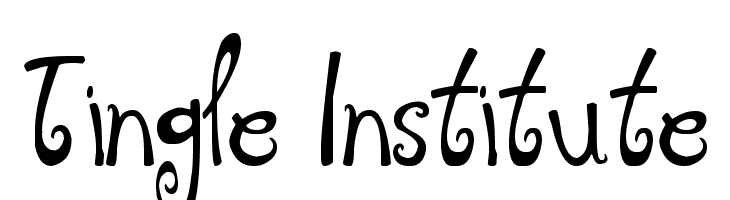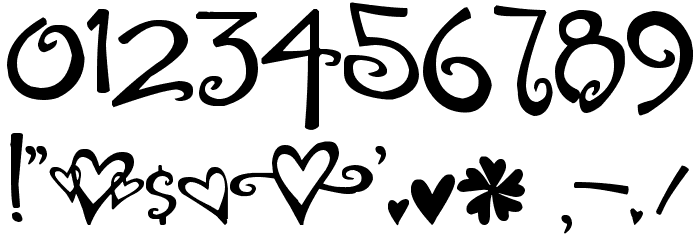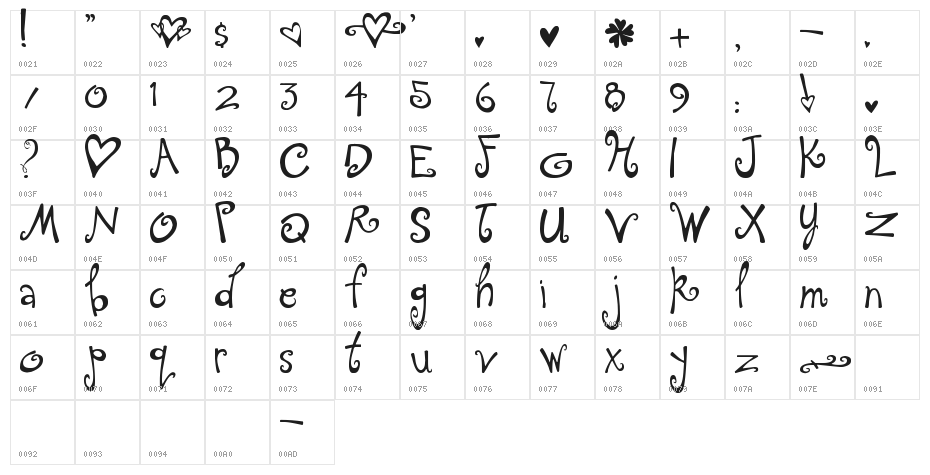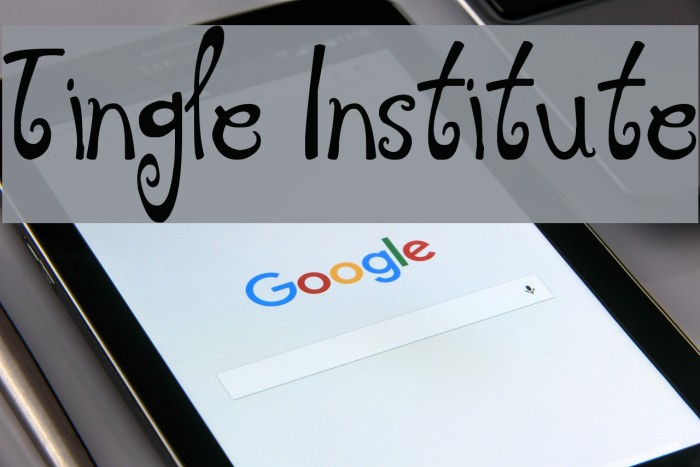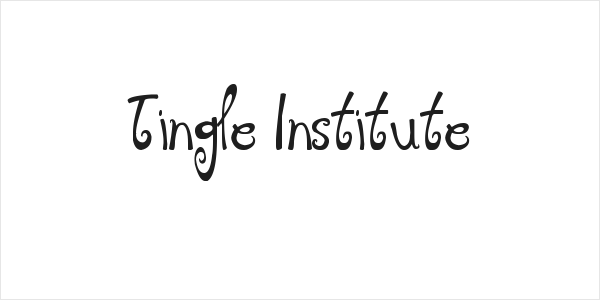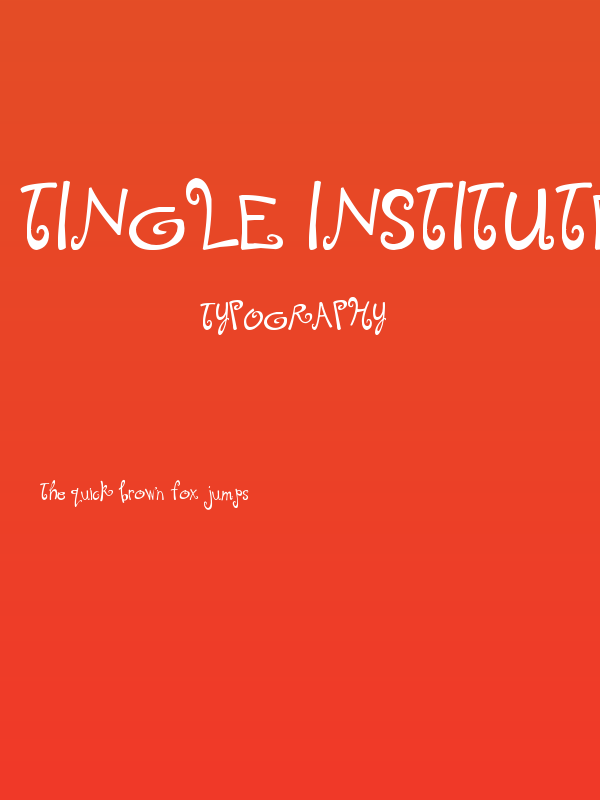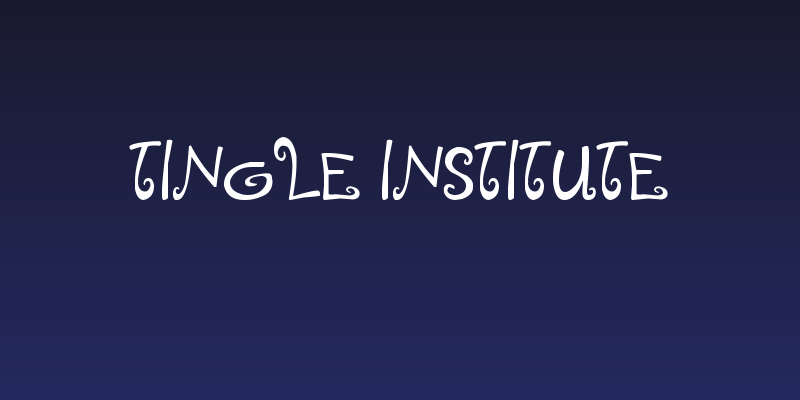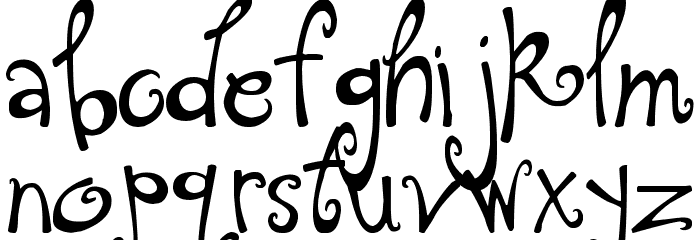
Tingle Institute Font
Tingle Institute Description
This whimsical and playful font features a unique, hand-drawn style with curly and swirly elements that give it a lively and energetic feel. The uppercase and lowercase letters are characterized by their irregular shapes and varying stroke thicknesses, adding to the font's charm and personality. The numbers and special characters continue this playful theme, incorporating heart shapes and decorative flourishes. This font is perfect for projects that require a fun, informal touch, such as children's books, greeting cards, or playful branding materials.
| Proposed Projects | Ideal for children's books, greeting cards, playful branding, and creative invitations. |